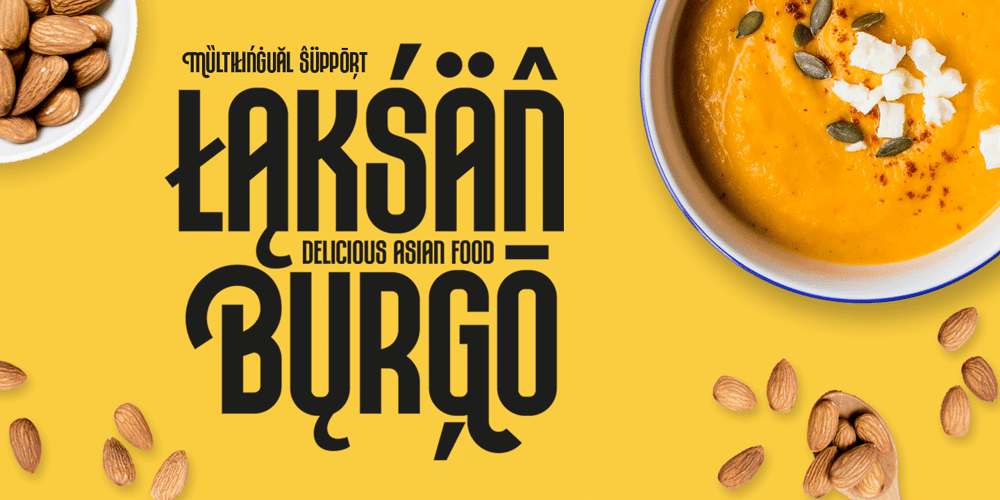
Rompies Font Family was designed by Ahmad Ramzi Fahruddin and published by Arterfak Project. Rompies contains 1 styles and family package options. Rompies is a modern condensed font, designed specifically for display. Rompies has thick strokes of letterforms and tight letterspacing to emphasizes the legibility and showing the unique letter-shape combinations. This font is an all-caps font that combines the lowercase as the uppercase that gives flexibility and decrease the negative space.Rompies equipped with a bunch of ligatures and alternates that makes this font so playfully to mix and match and get the modern typographic design. Perfect for the headline, menu, logotype, labels, signage, quote, modern poster, urban poster, sports themes, apparel, and many more!Featured : Uppercase Small caps Numbers Symbols Accented characters Stylistic alternates Ligatures